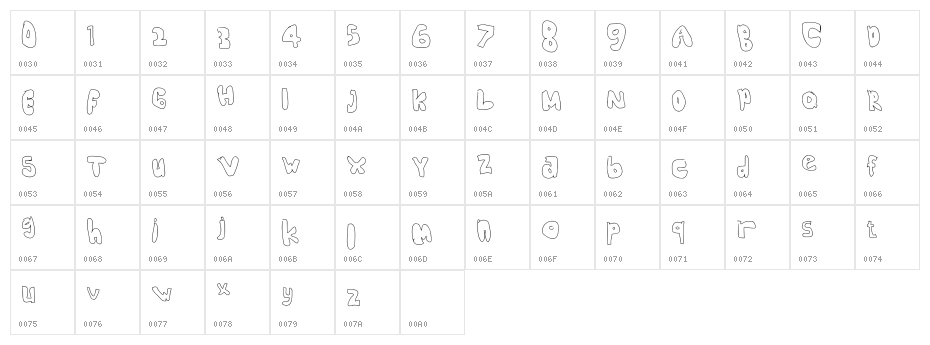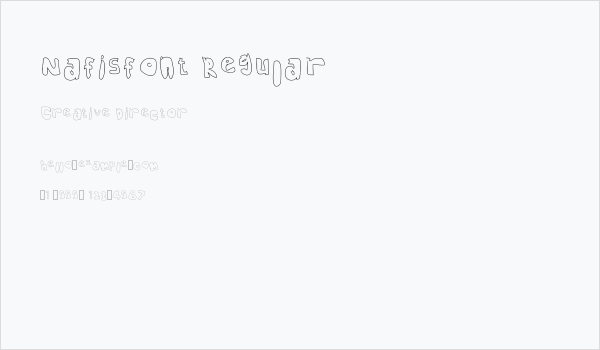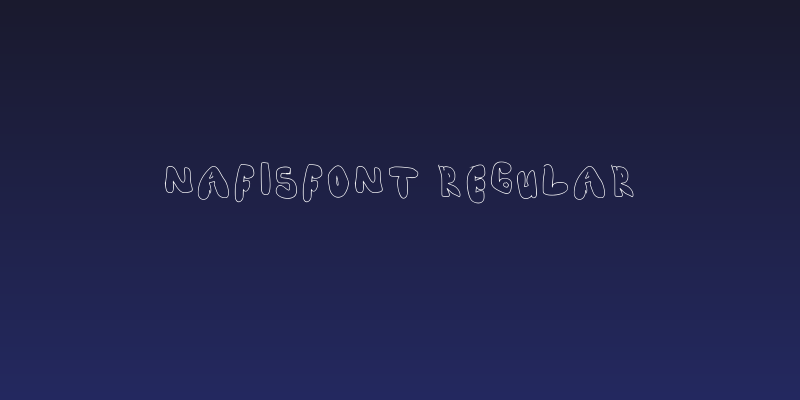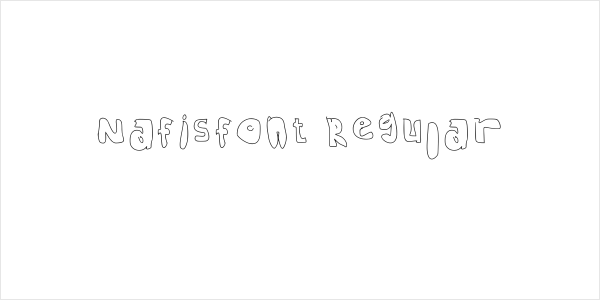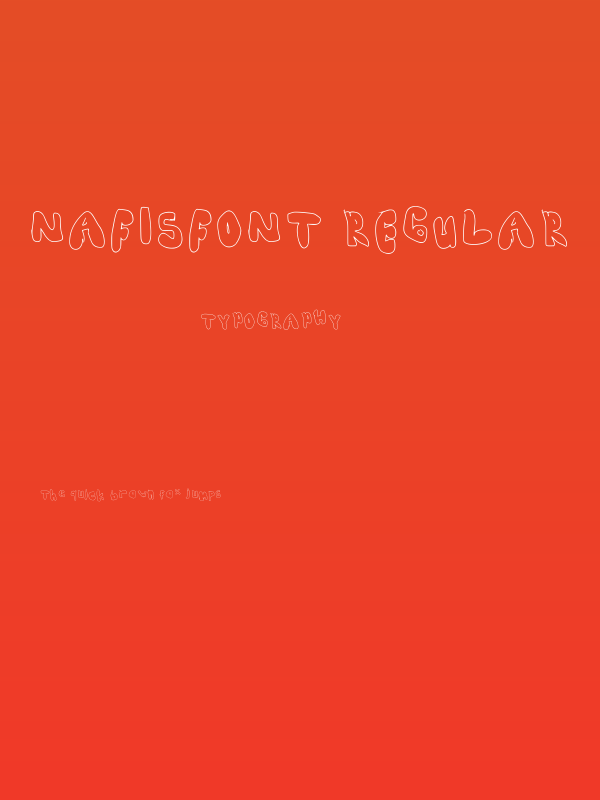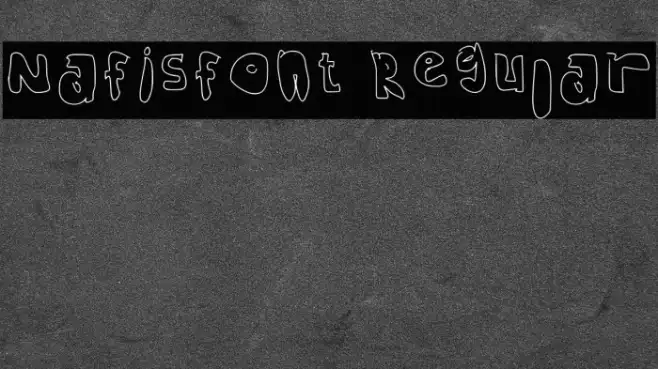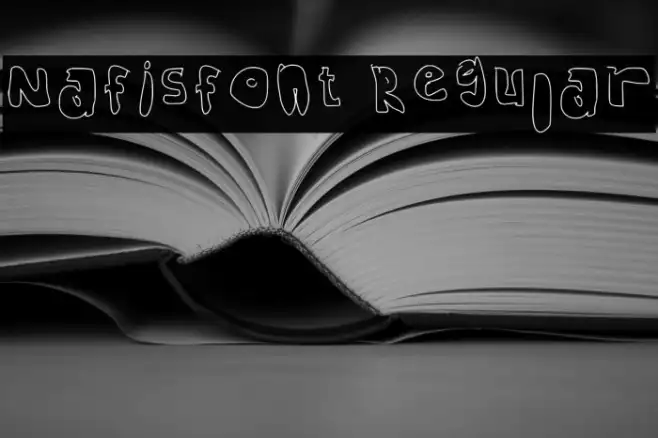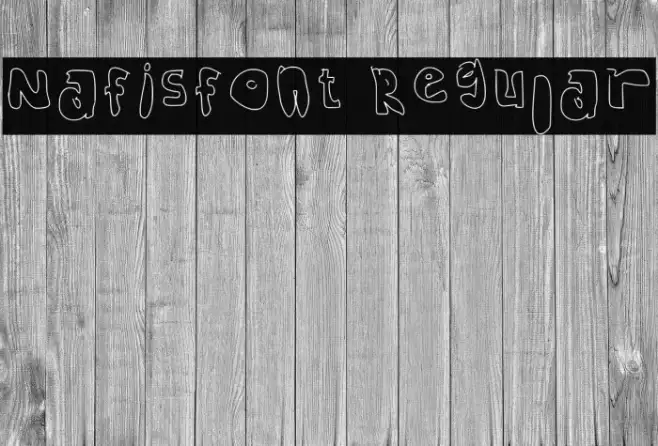
Nafisfont Regular Font
Nafisfont Regular Description
This playful and whimsical font features a hand-drawn, organic style with irregular shapes and a casual feel. The characters are bold and rounded, with a slightly uneven baseline that adds to its charm. The uppercase and lowercase letters maintain a consistent style, while the numbers and special characters complement the overall design. This font exudes a sense of fun and creativity, making it ideal for projects that require a lighthearted and informal touch.
| Proposed Projects | Ideal for children's books, playful branding, greeting cards, and creative posters. |